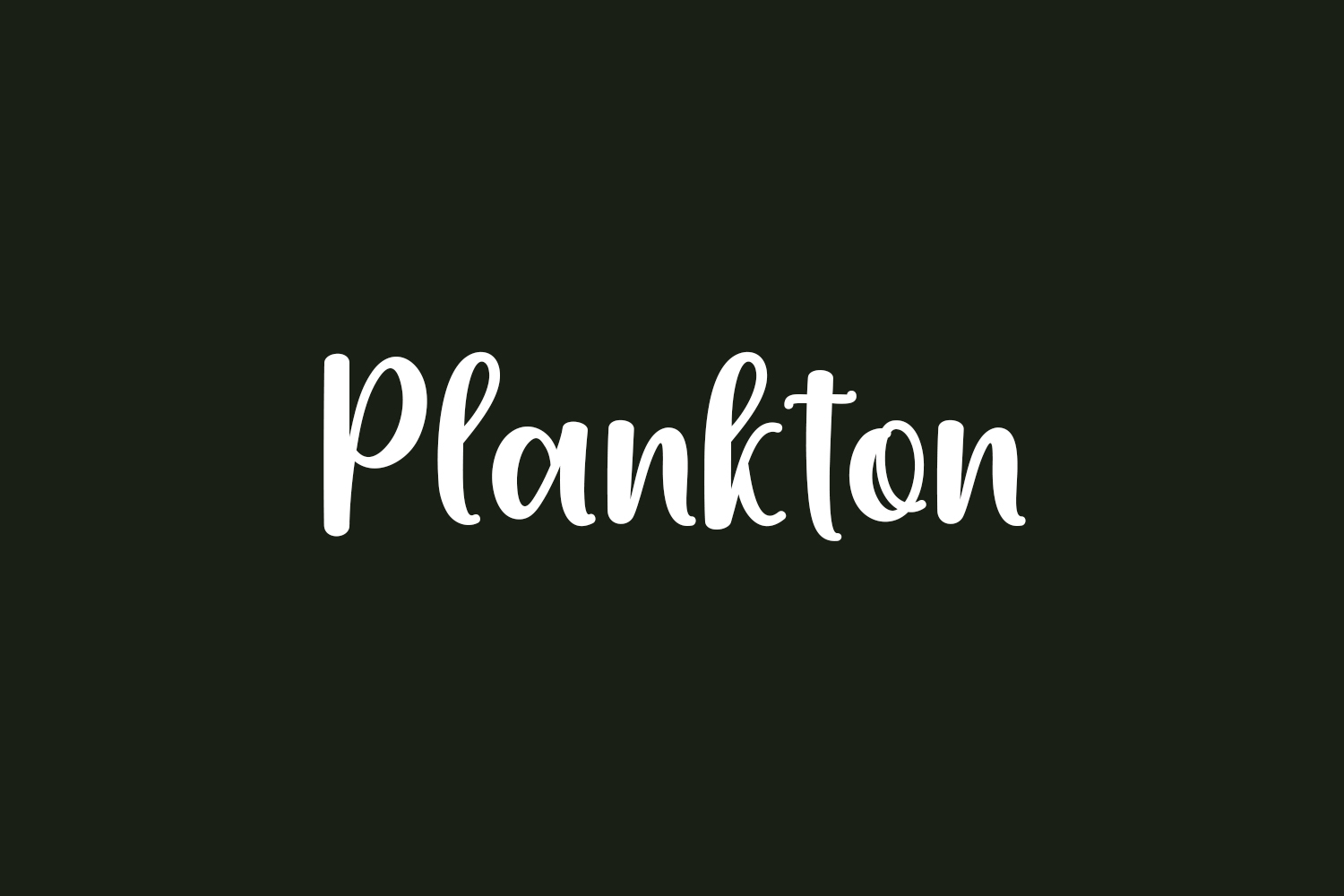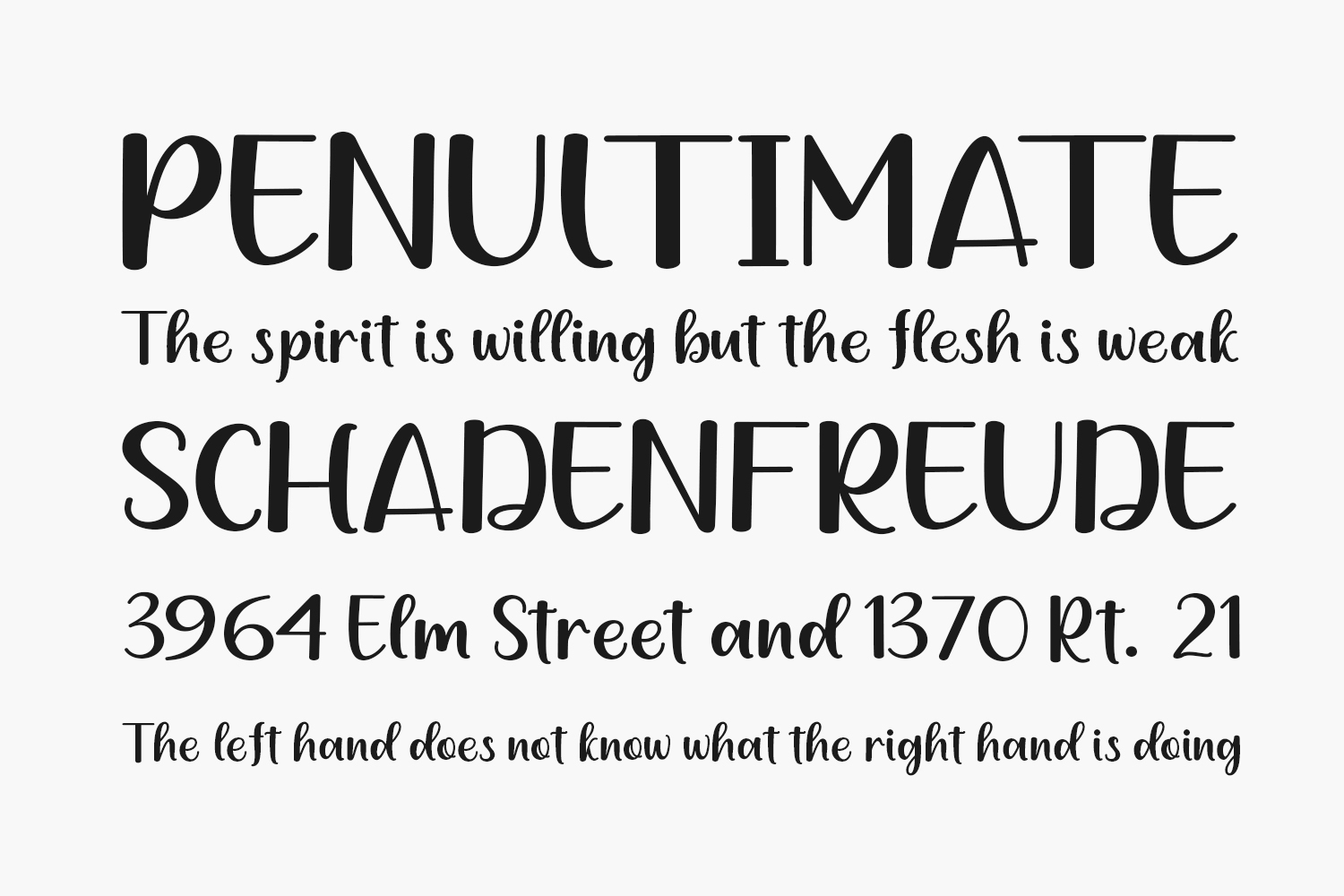
Plankton Free Font feels elegant and stylish. This stunning script font is a unique homage to classic calligraphy. Get inspired by its authentic feel and use it to create gorgeous wedding invitations, beautiful stationary art, eye-catching social media posts, and cute greeting cards. Plankton Free Font was designed by Amarlettering – Takiy and is free for personal use only. Please purchase the full version for commercial use.